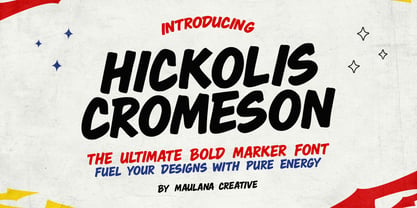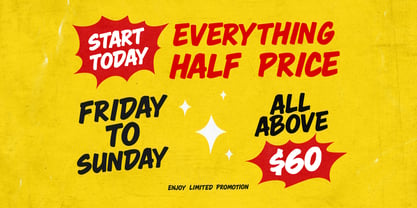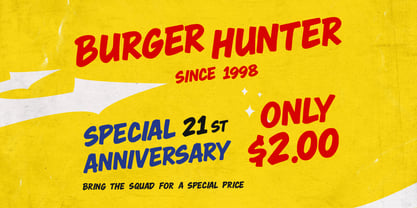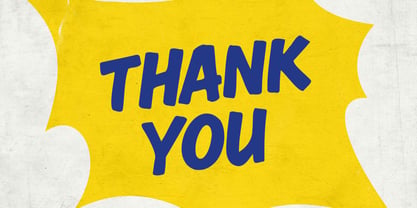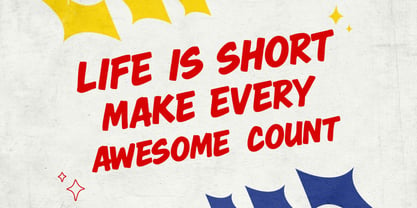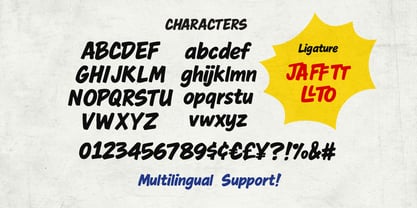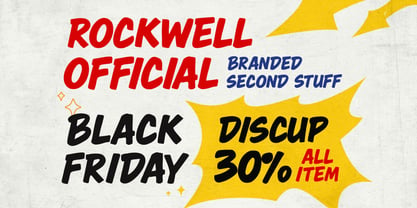
MC Hickolis Cromeson
par Maulana Creative
La famille de polices MC Hickolis Cromeson a été conçue par Gilang Maulana et publiée par Maulana Creative. MC Hickolis Cromeson contient 1 styles. En savoir plus sur cette famille
Inject pure energy and a raw, handcrafted feel into your projects with Hickolis Cromeson. Designed to capture the authentic, thick strokes of a permanent marker, this font is all about making a loud and confident statement. Whether you are designing a high-impact headline, a trendy restaurant menu, or eye-catching social media graphics, Hickolis Cromeson delivers a bold, urban personality that is impossible to ignore. Its slightly slanted, rhythmic flow gives your text a sense of motion and urgency, making it perfect for promotions, street style branding, and athletic.
Concepteurs: Gilang Maulana
Fonderie: Maulana Creative